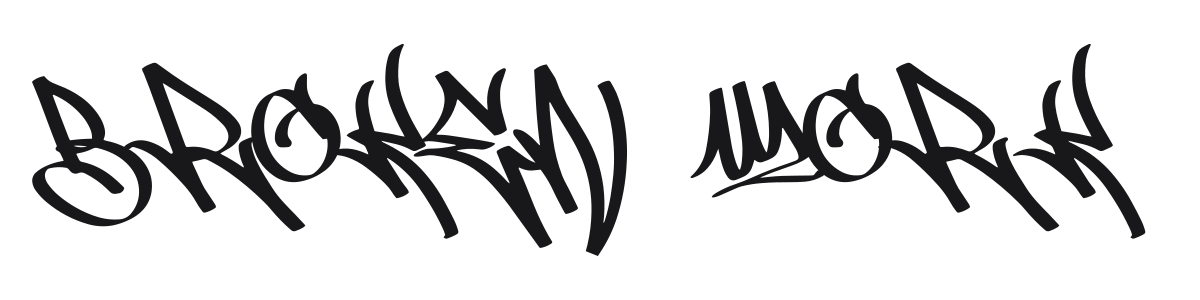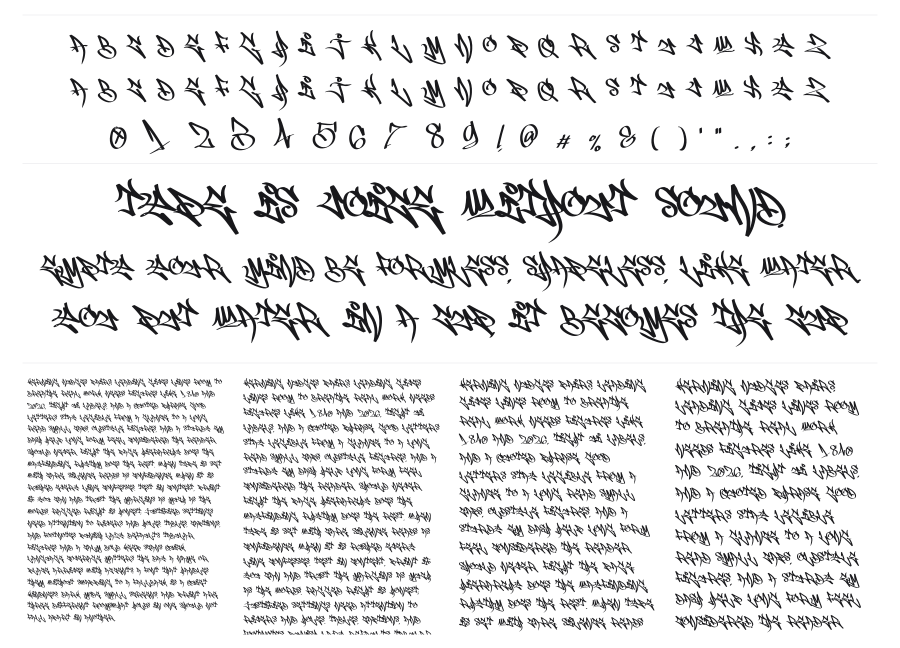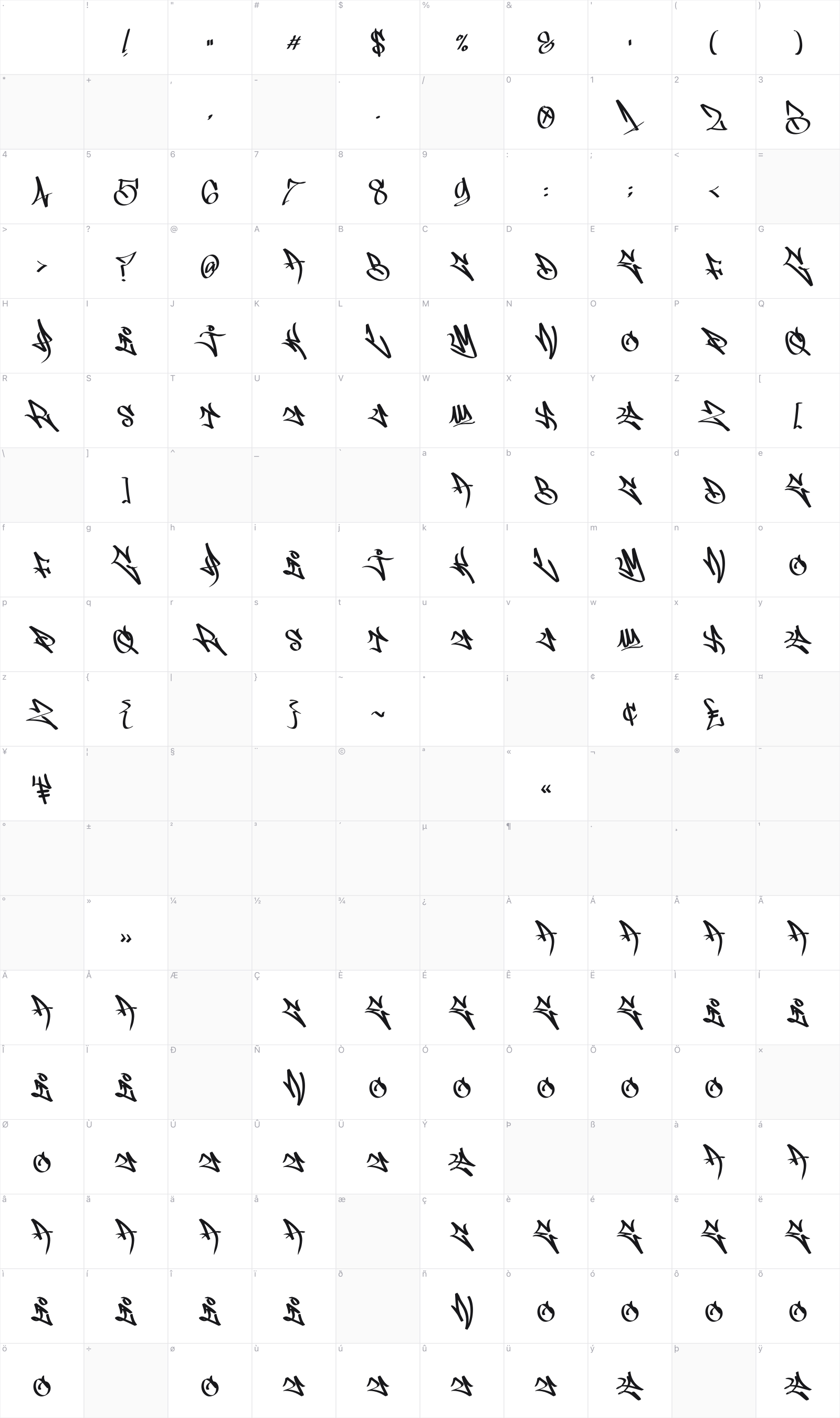
Broken Work
Broken Work is a wildstyle graffiti script that channels authentic street-art energy with sharp angular strokes and interlocking forms. The high-contrast construction shifts between heavy stems and razor-thin connecting lines, giving it that dense, complex texture graffiti writers spend years perfecting. Best used large, where the chaos resolves into character.